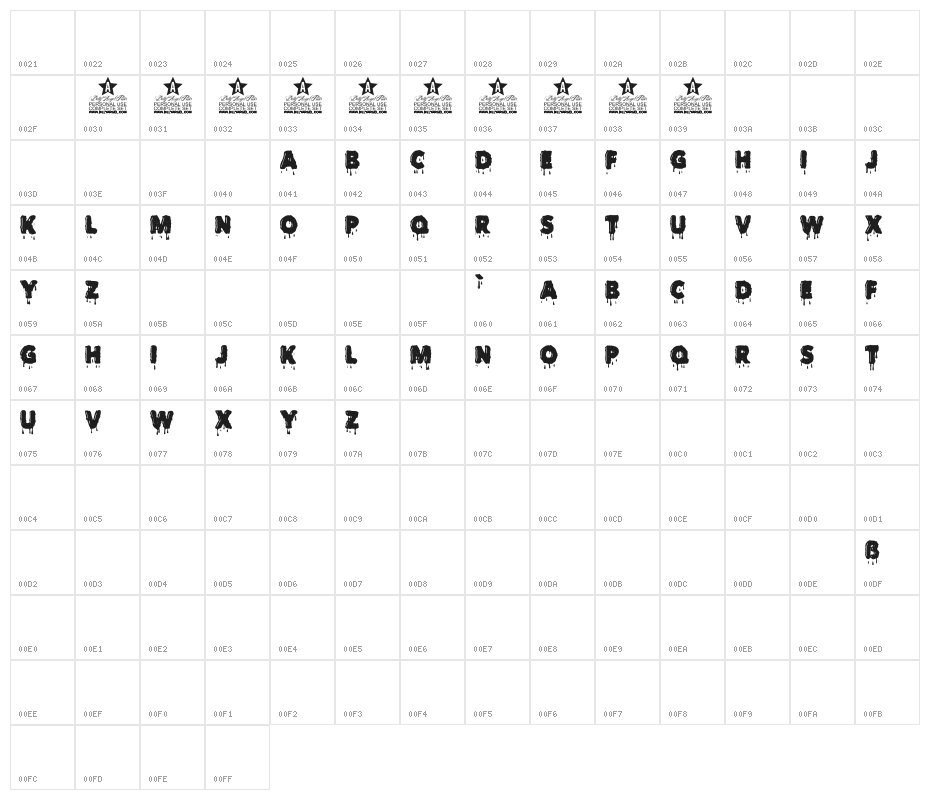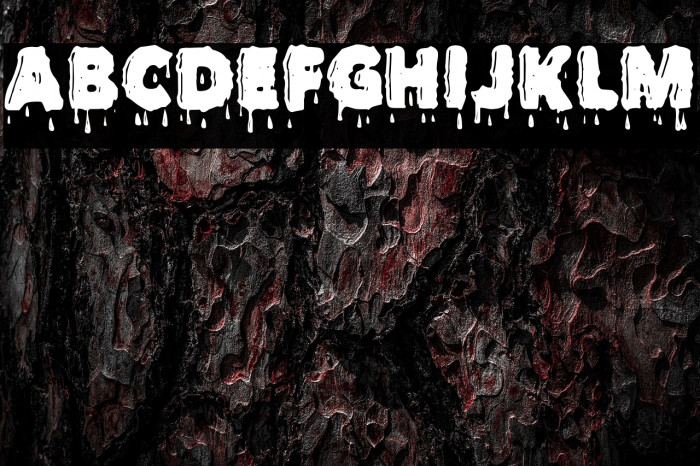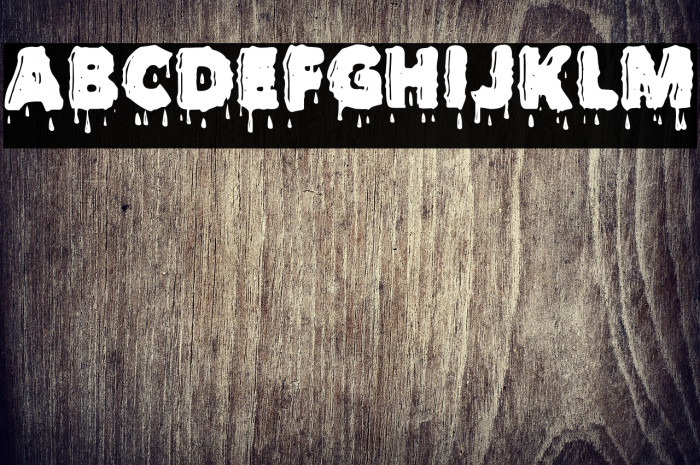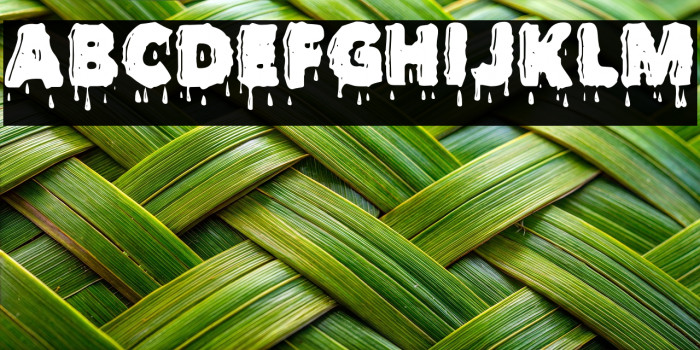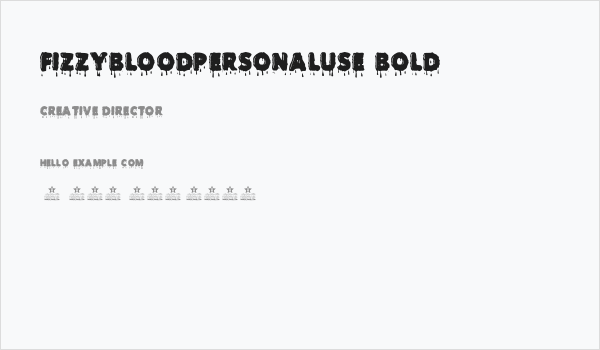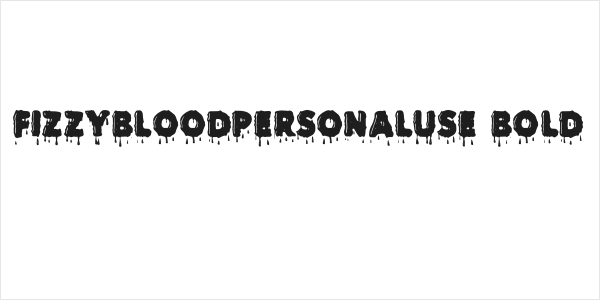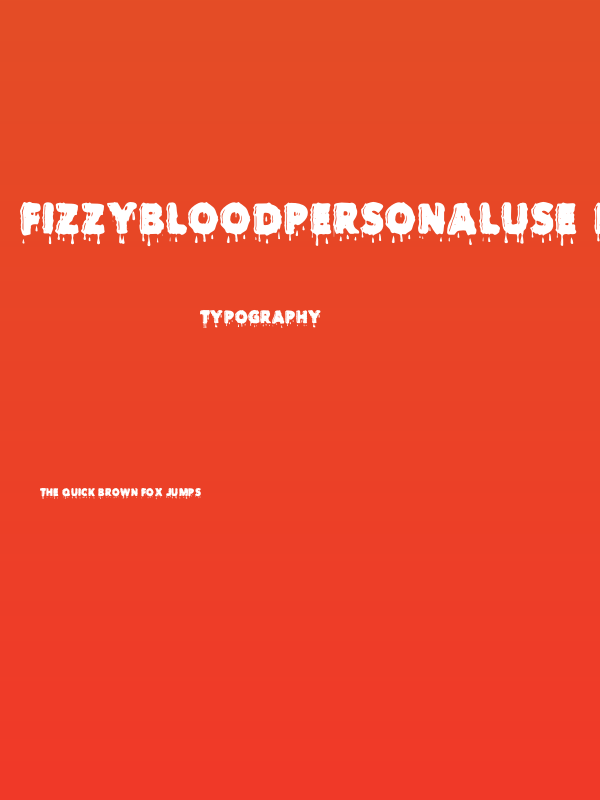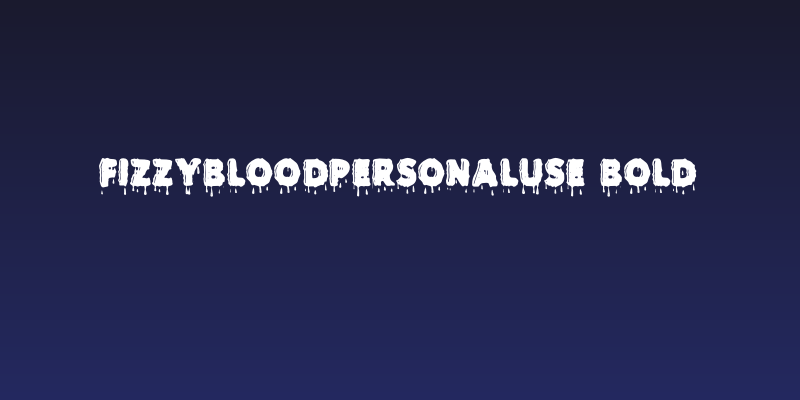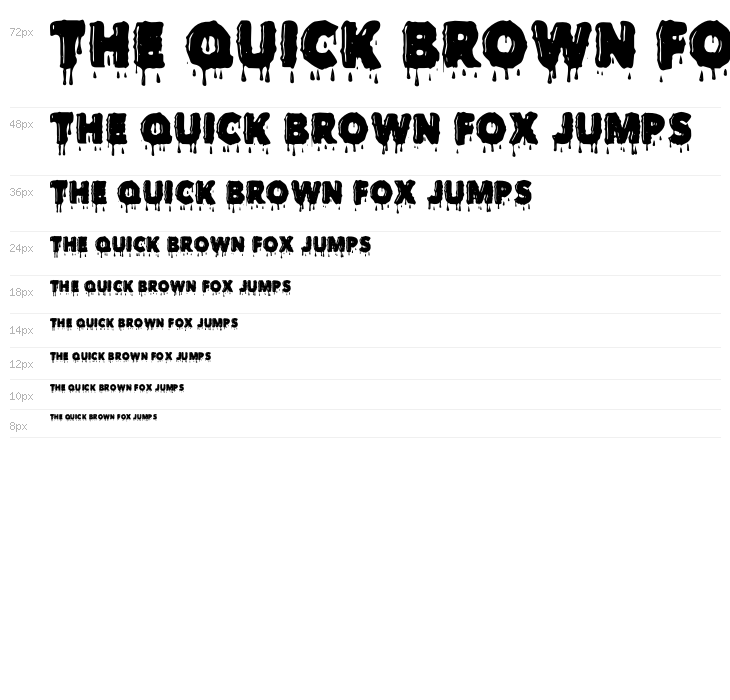
FIZZYBLOODPERSONALUSE-Bold Font
FIZZYBLOODPERSONALUSE-Bold Description
This font features a bold and dramatic style with a dripping effect that gives it a unique and edgy appearance. The uppercase letters are designed with a thick, heavy stroke, creating a sense of weight and presence. The dripping elements add a dynamic and somewhat chaotic feel, making it stand out as a decorative choice. The overall look is reminiscent of horror or Halloween themes, making it ideal for projects that require a spooky or intense aesthetic. The characters are evenly spaced, ensuring readability despite the intricate design.
| Proposed Projects | Ideal for Halloween posters, horror movie titles, themed party invitations, and edgy graphic designs. |